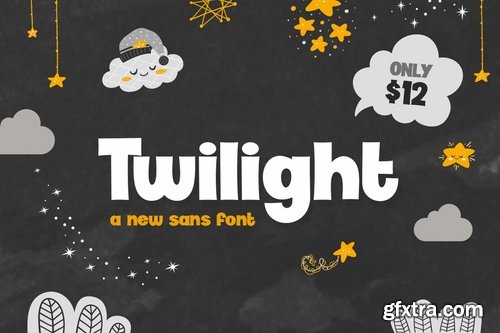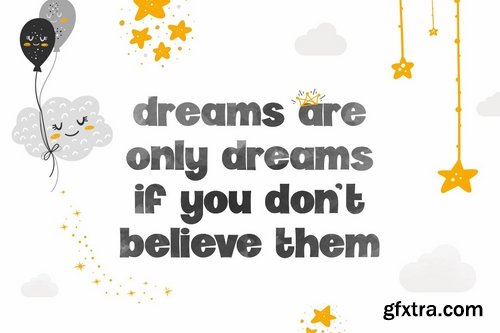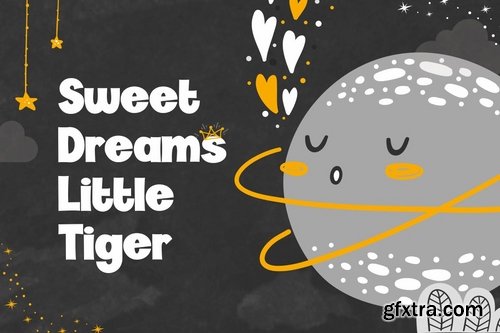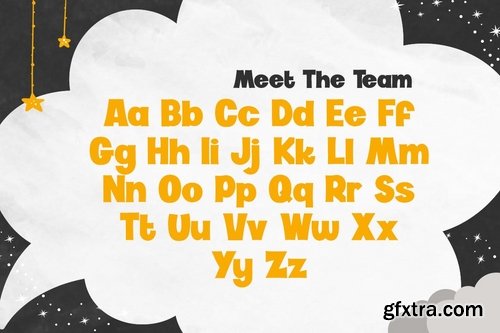
Check out our new font Twilight! A fabulous new offering that is sans but not as you know it! Kooky characters are what makes this font unique and offers a more modern twist on a classic. Enjoy!